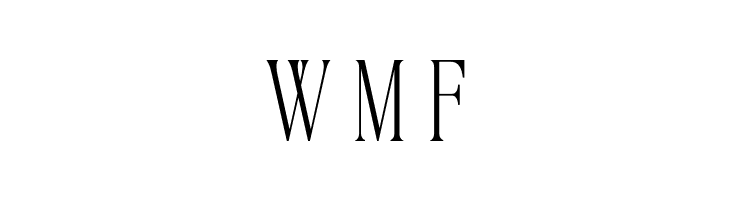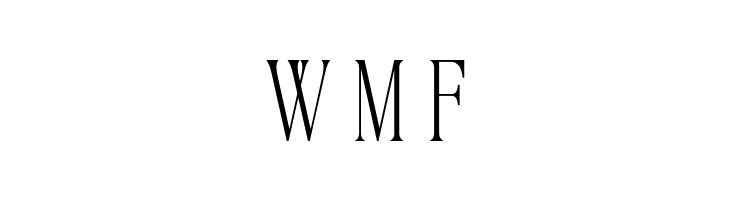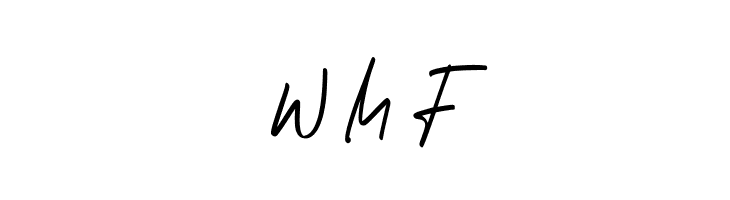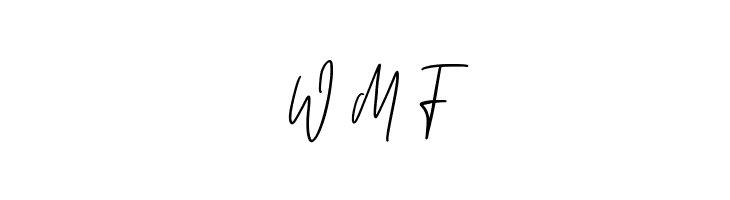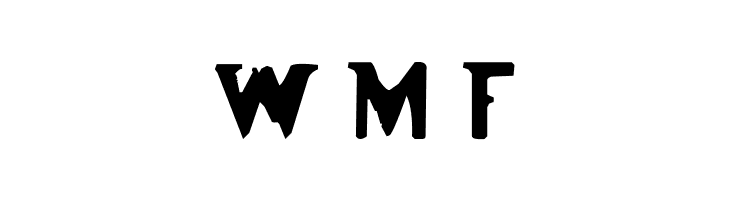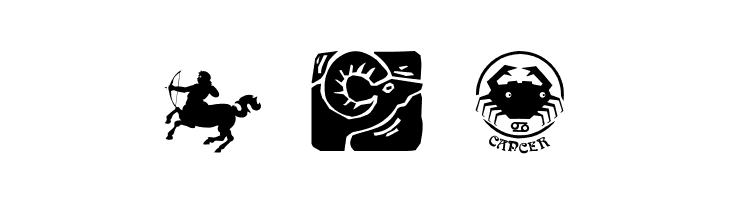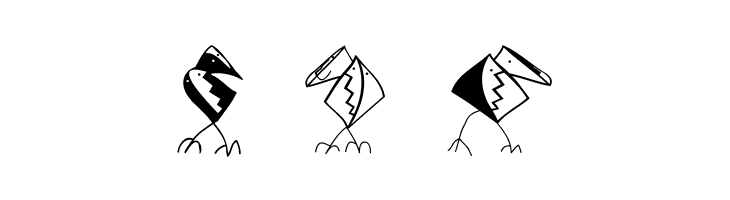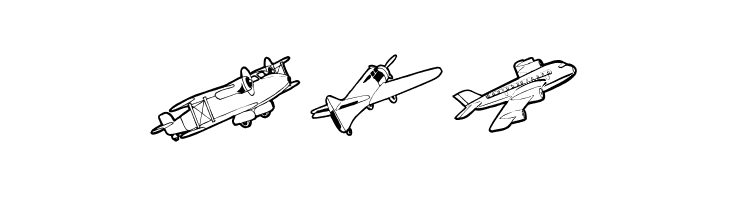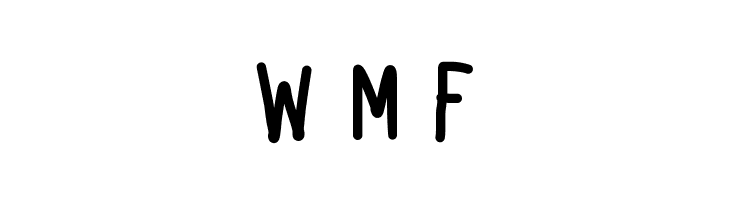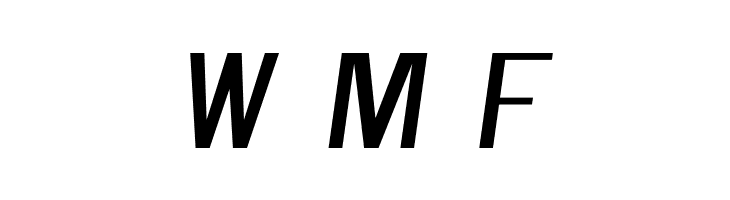
• As seen on TV Skew
A modern, slanted font with a sleek and dynamic design.
• AsABird
A novelty font where each character is a different airplane or helicopter illustration.
• AsdfghjklBold
A bold, playful handwritten font with rounded strokes and a casual style.
• AsdfghjklLight
A playful, handwritten font with tall, narrow characters and consistent stroke thickness.
• Asgalt Regular
A modern, geometric font with clean lines and sharp angles.
• Ashbury
A bold, rounded font with a modern and playful style.
• Ashbury Italic
A bold, rounded, and italic font with a modern and playful style.
• Asiatropic Free Font
A lively and expressive handwritten font with fluid strokes.
• Asimov
• Asman
• Asmath Free Regular
( Degi Kurniawan )
A classic serif font with elegant curves and sharp serifs.
• Asrelurio St
( Southype - Rodrigo Gonzalez - www.southype.com )
A modern, decorative font with diagonal stripe patterns in each character.
• Assassin FREE
A bold, distressed font with a dripping ink effect, perfect for grunge or horror themes.
• Associations
An abstract, geometric font with intricate patterns and high contrast.
• AssociationsBirds
A whimsical, bird-themed decorative font with bold, angular lines and contrasting patterns.
• Assoziazione
A whimsical and artistic collection of decorative characters and illustrations.
• Asterica Free Font
A modern, expressive handwritten font with elegant, elongated strokes.
• Asterikats Free Regular
A playful, artistic handwritten font with fluid, connected letterforms.
• ASTOLOGY ASTROLOGICAL TFB
A geometric font featuring astrological symbols and celestial icons.
• Astone Nouvea Regular
An elegant, high-contrast font with unique curves and a modern flair.
• AstoneNouvea-Regular
An elegant serif typeface with high contrast and Art Nouveau influences.